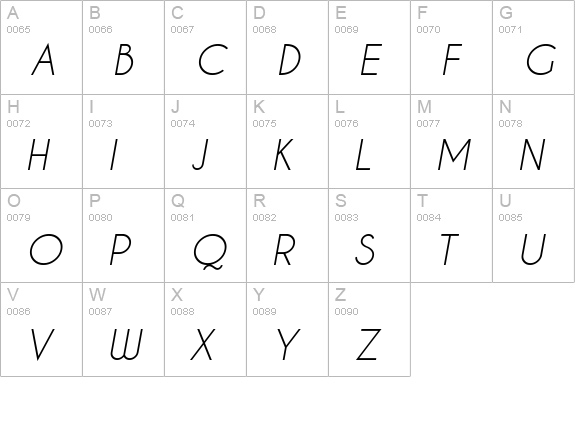
Caviar Dreams Italic Font Details
Caviar Dreams Italic is a distinctive, italic variant in the Caviar typeface family \xE2\x80\x94 well suited to design and typography projects.
Caviar Dreams Italic font is a sleek and stylish typeface that exudes elegance and sophistication. Its italicized design adds a touch of fluidity and grace to any text it graces. This exquisite font is perfect for adding a touch of luxury to your designs, whether it be for branding, editorial layouts, or even wedding invitations. With its slender and refined letterforms, Caviar Dreams Italic font effortlessly captures attention and creates a sense of exclusivity. Its smooth curves and delicate strokes create a harmonious balance that is pleasing to the eye. The italic style lends a sense of movement and dynamism, making it ideal for conveying a sense of sophistication and class. One of the best aspects of Caviar Dreams Italic font is that it is freely available to download at FontsMarket.com. This means that you can easily access this exquisite font and incorporate it into your projects without any hassle. Whether you are a professional designer or a creative enthusiast, having access to this stunning font can elevate your work to new heights. So, if you are looking to add a touch of elegance and luxury to your designs, Caviar Dreams Italic font is the perfect choice. Its sleek and stylish design, combined with its free availability at FontsMarket.com, makes it a must-have for anyone in search of a font that effortlessly embodies sophistication and refinement. Download it now and let Caviar Dreams Italic font elevate your designs to a whole new level of elegance.